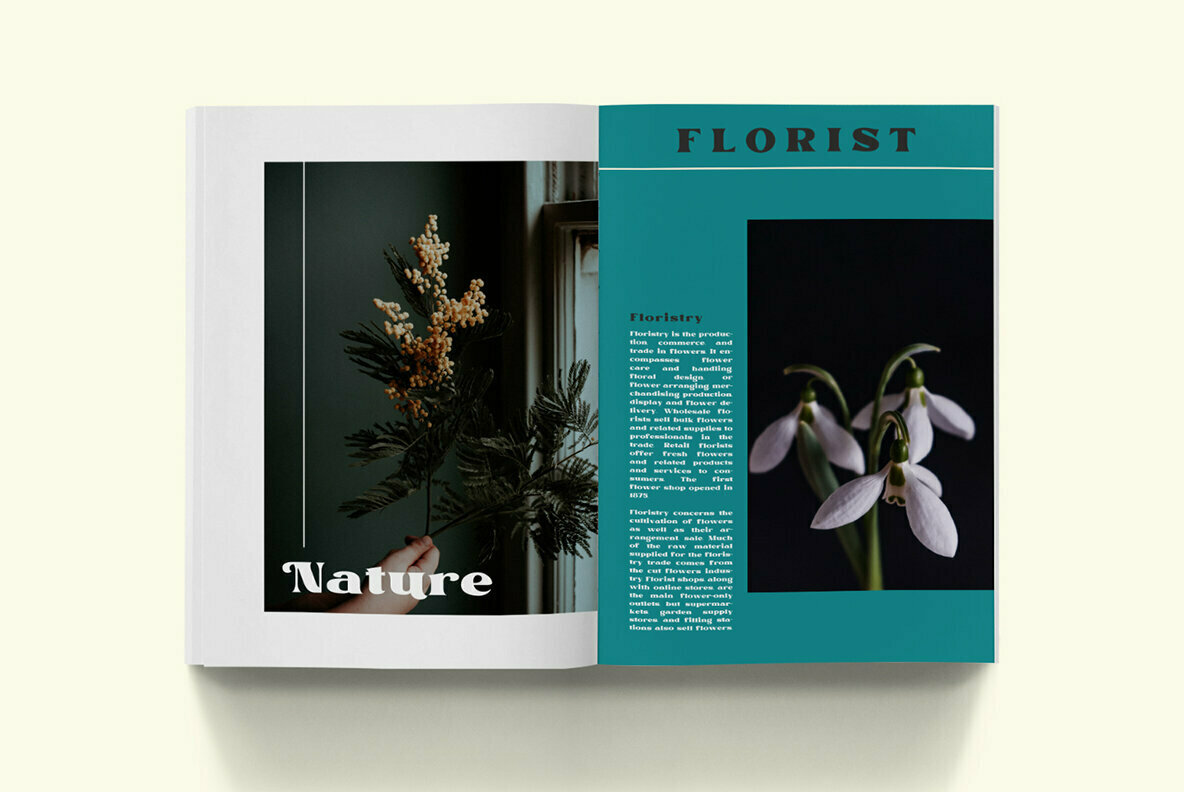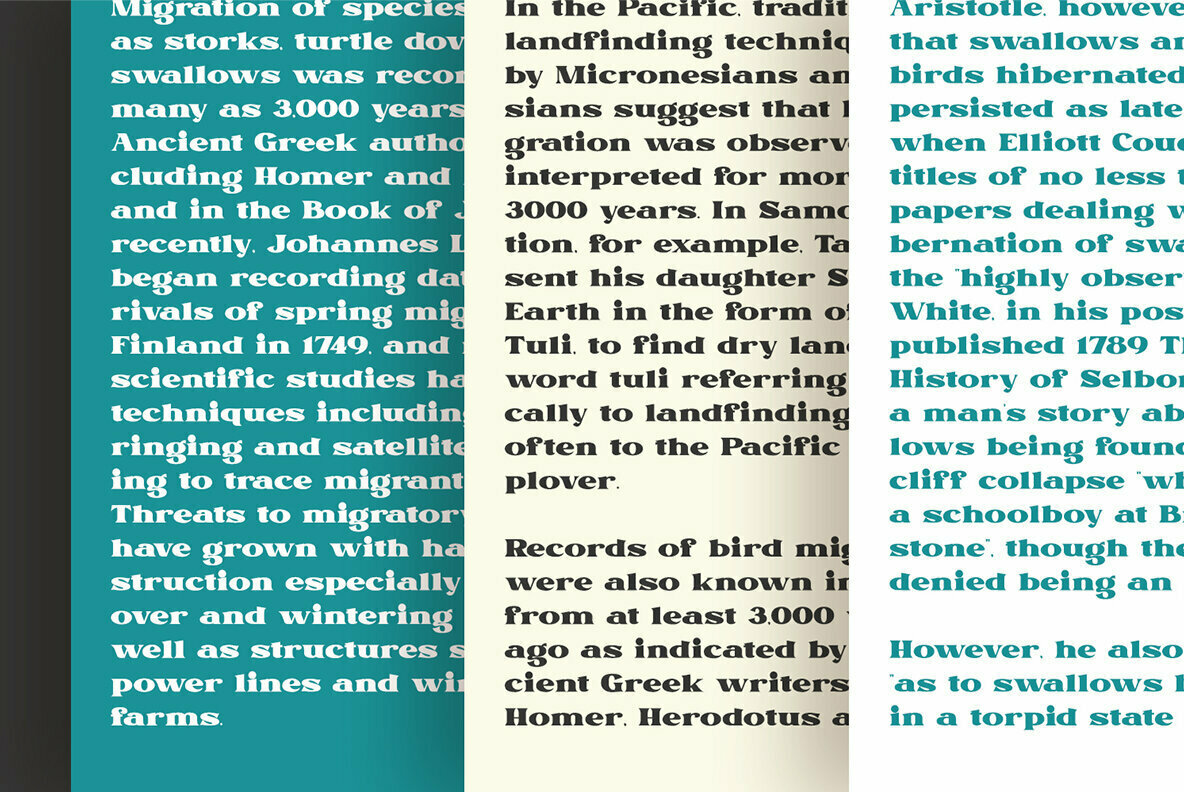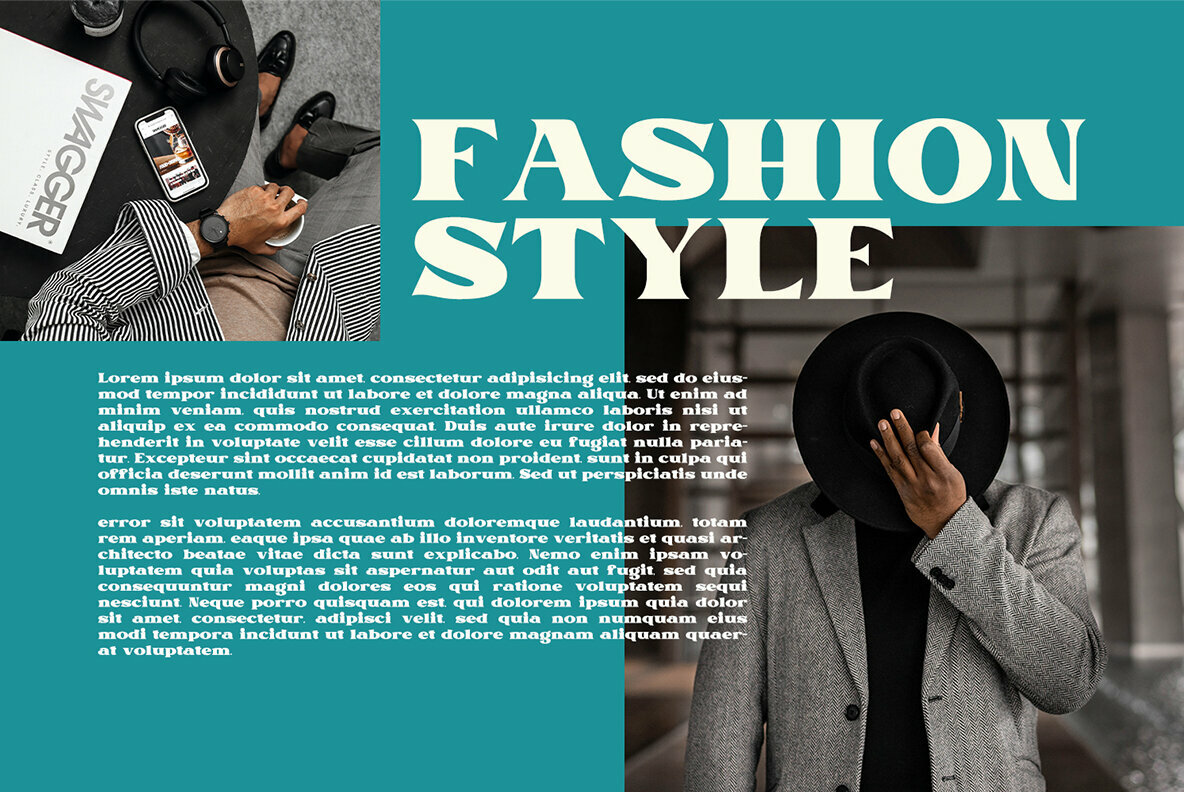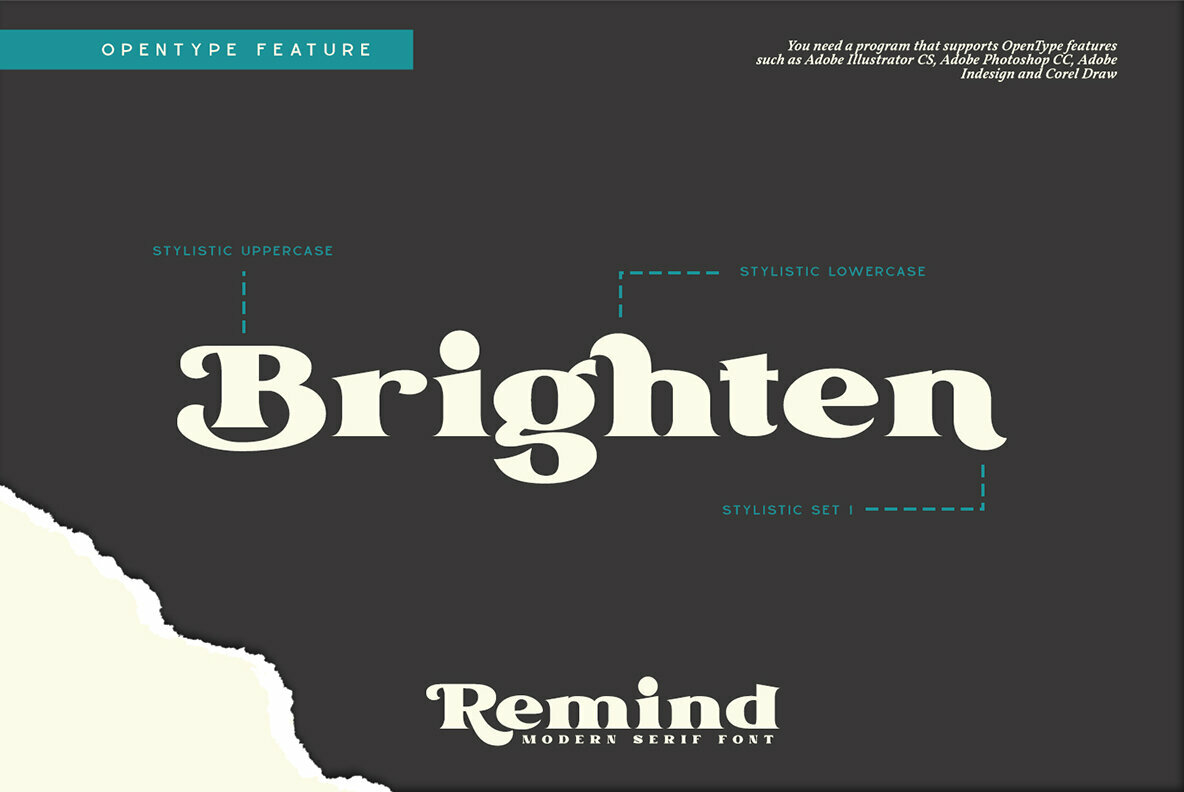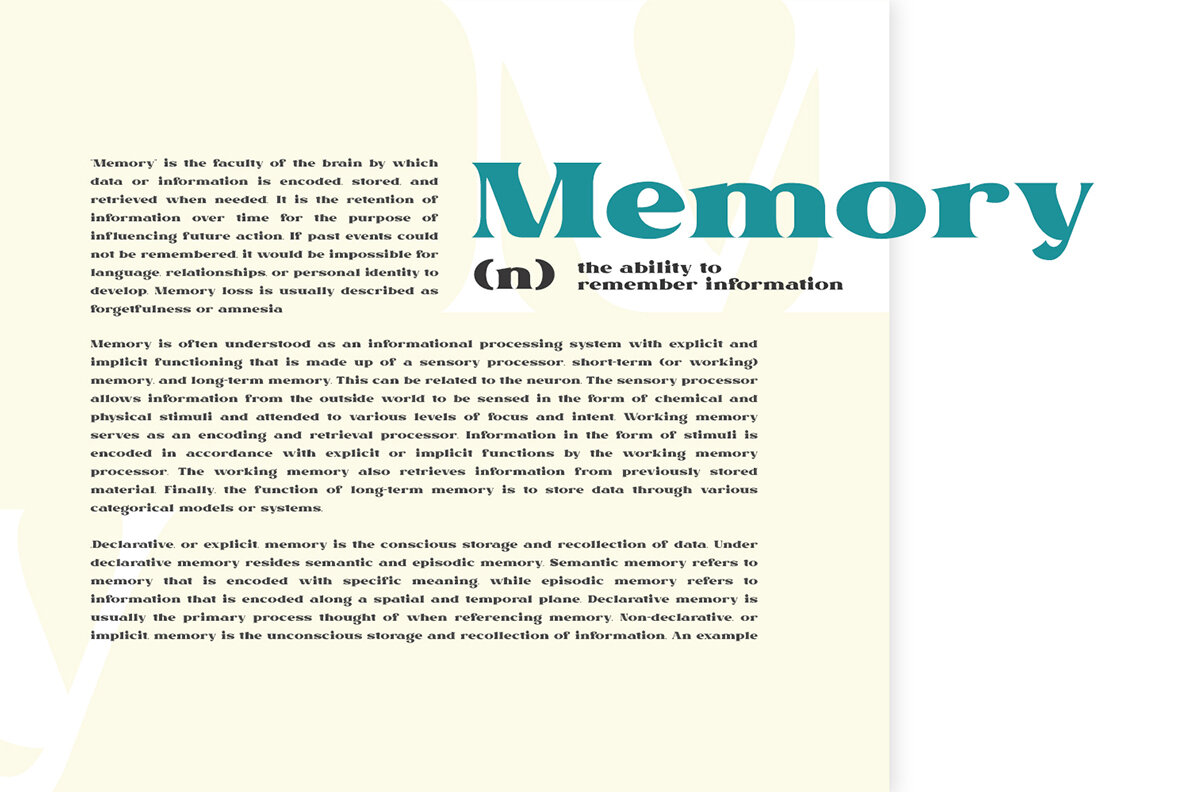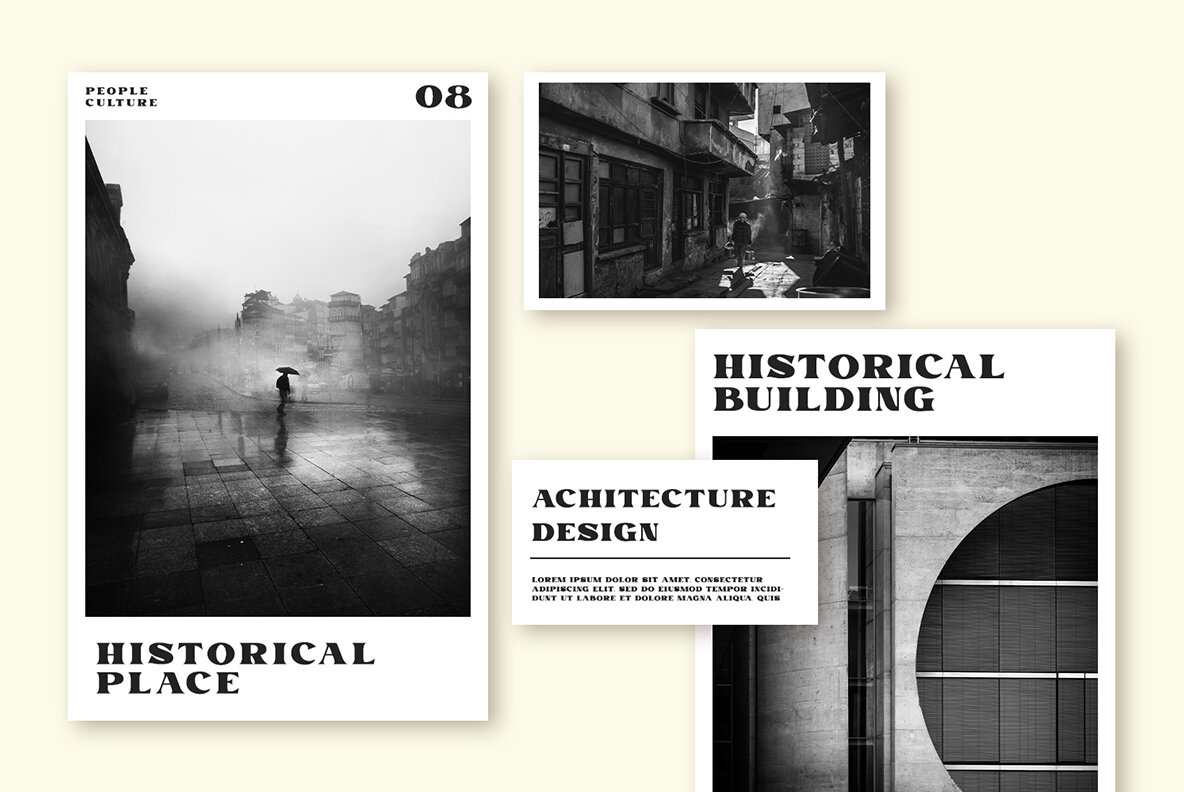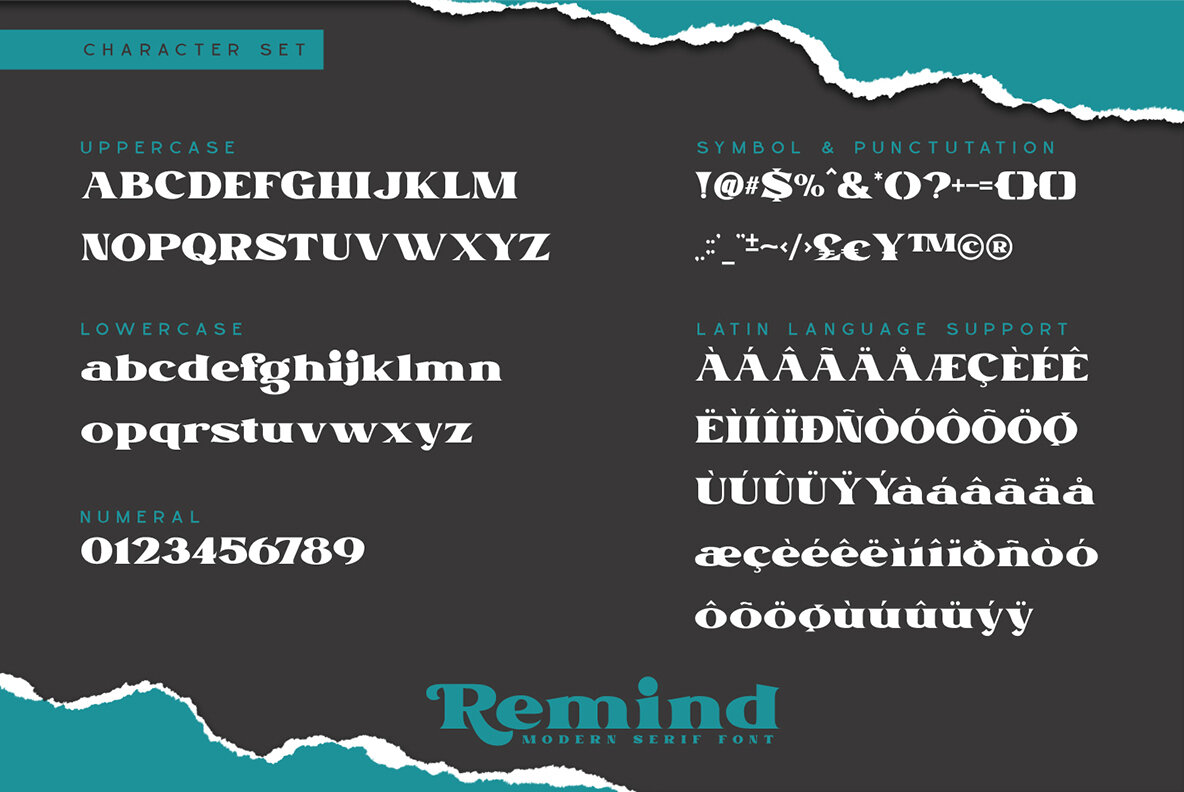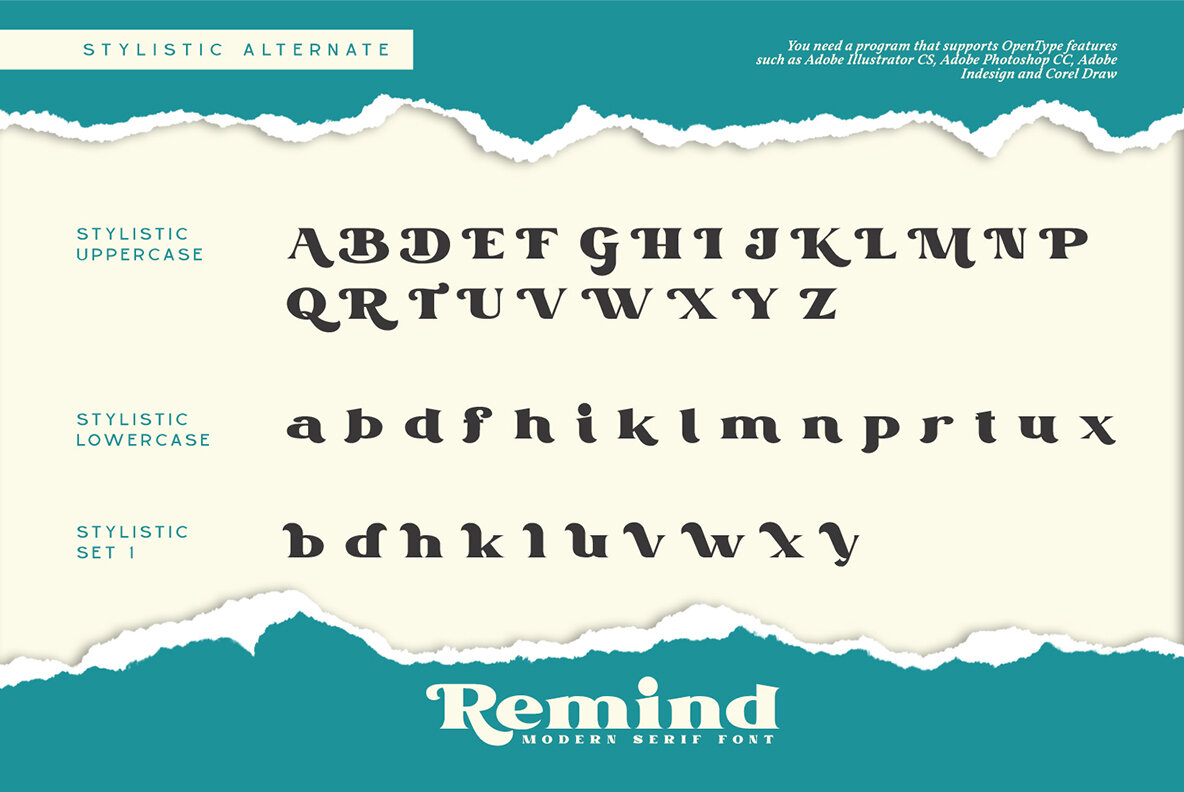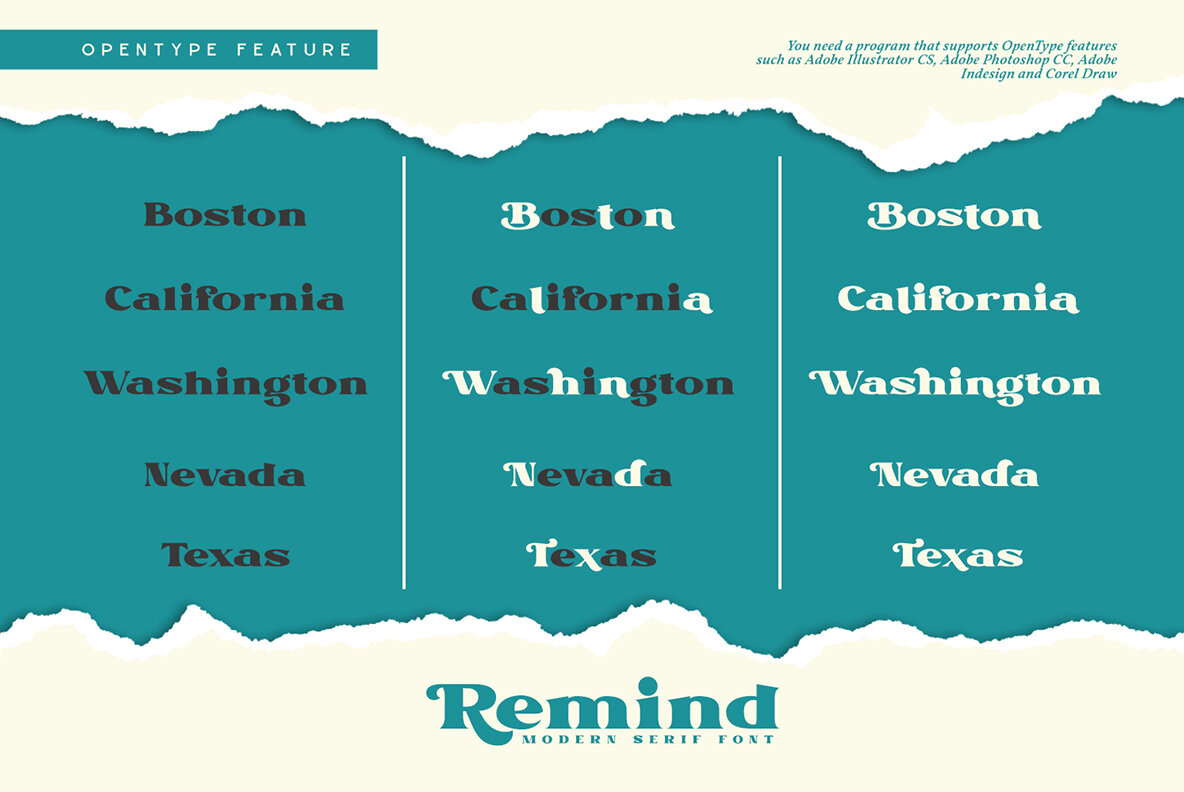
Remind Font
Remind
Remind is a sophisticated serif font crafted by our talented team at Din Studio. Known for its modern aesthetic, this typeface seamlessly enhances any design project, whether it's branding, print templates, or logos. Features:Remind: A Modern Serif for Elegant Design